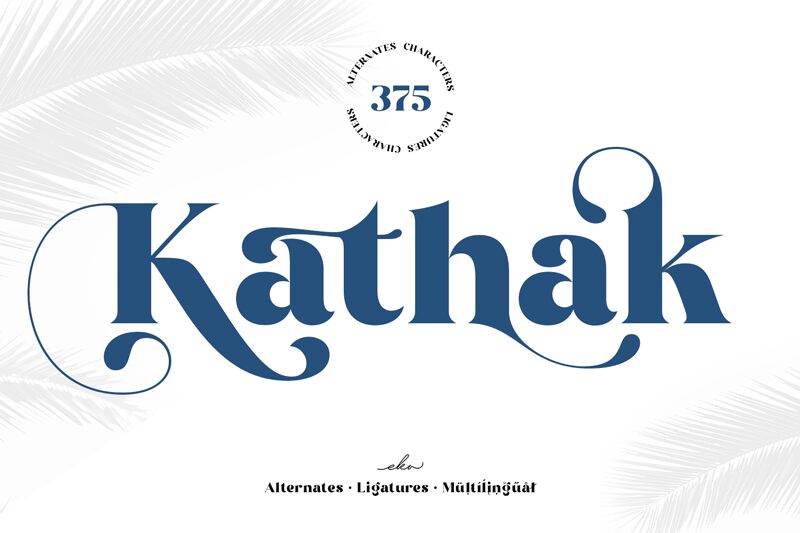
Kathak, crafted by Eka Hermawan, is a bold serif font that exudes confidence and strength. Its robust strokes and pronounced serifs give it a stately presence on the page, commanding attention with its assertive styling. The characters possess a timeless elegance, yet their substantial form offers a modern twist that makes Kathak both versatile and impactful.
Ideal for headlines, branding, and advertising materials, this font has the potential to bring a touch of sophistication to any design project. Its distinct serifs and strong character make it perfect for creating memorable logos or authoritative editorial titles. Whether on print or digital platforms, Kathak stands out with unmissable clarity, making it an excellent choice for designers looking to leave a lasting impression.